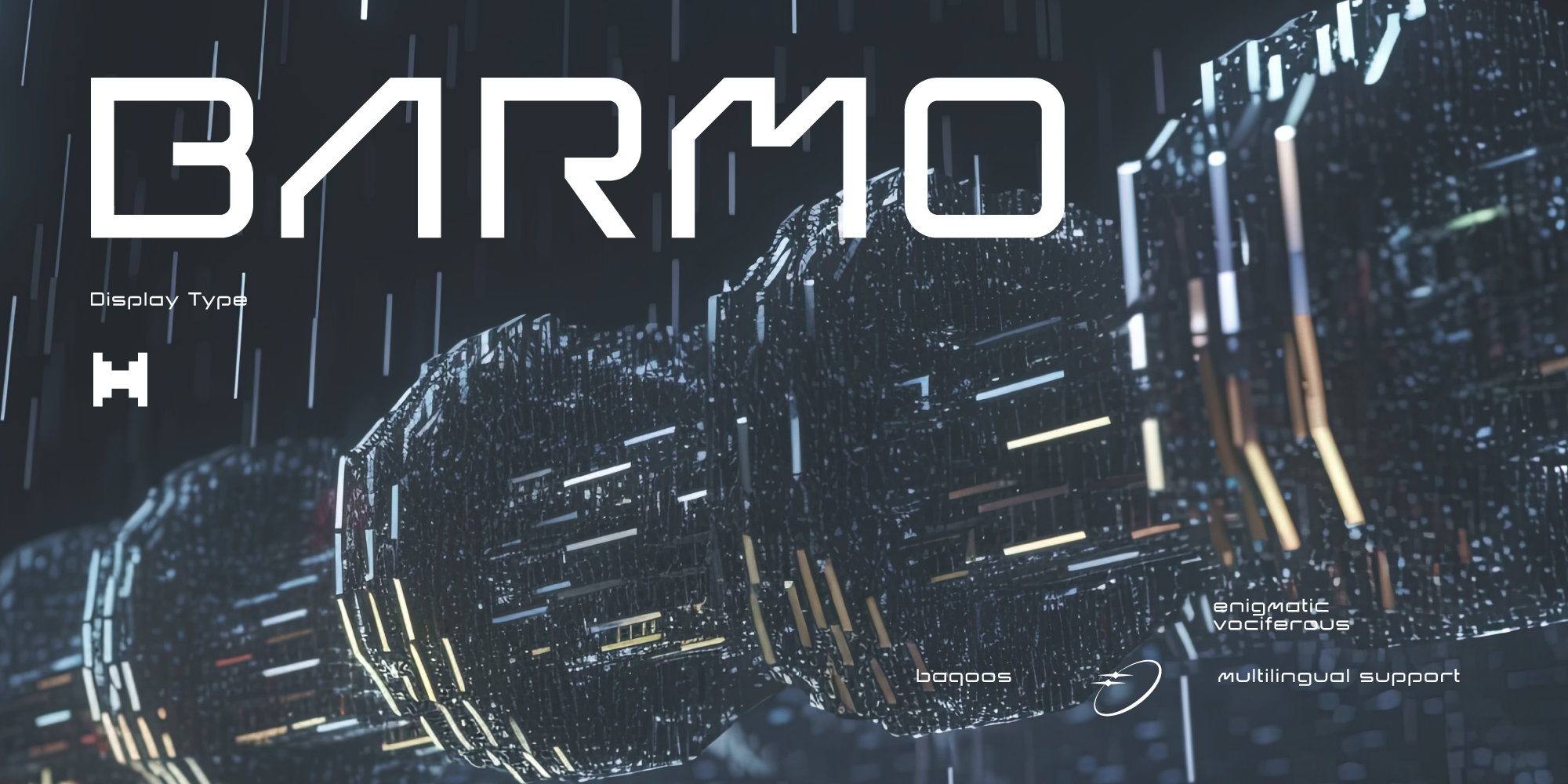
Barmo Font is perfect for versatile design projects including casual restaurant branding, coffee shop signage, creative agency logos, indie brand packaging, lifestyle blog headers, artisan product labels, boutique retail materials, social media graphics, friendly corporate communications, and approachable small business designs that require warm, inviting typography with distinctive personality.
What makes Barmo Font so exciting is its perfect balance of casual friendliness with professional reliability that creates instant connection and trust with audiences across diverse demographics. This charming typeface features rounded letterforms, comfortable spacing, and subtle character variations that convey approachability and authenticity while maintaining excellent readability, making it ideal for brands seeking to establish genuine relationships with their customers through welcoming visual communication.
Barmo Font typically includes comprehensive font families with light, regular, medium, bold, and black weights, plus matching italic styles, condensed variations, and extended character support, providing designers with complete flexibility to create cohesive brand identities and establish clear typographic hierarchies across various media applications.
This delightful Barmo Font Free Download offers creative professionals an exceptional foundation for projects requiring friendly, approachable typography that doesn't compromise on professionalism or functionality. Whether you're developing small business branding, community-focused materials, or casual dining establishments, this font delivers warmth and reliability while ensuring clear communication. The balanced design characteristics and versatile weight options make it particularly valuable for local businesses, creative startups, and community organizations seeking to communicate authenticity, approachability, and trustworthiness through typography that creates positive first impressions and fosters meaningful connections with target audiences.